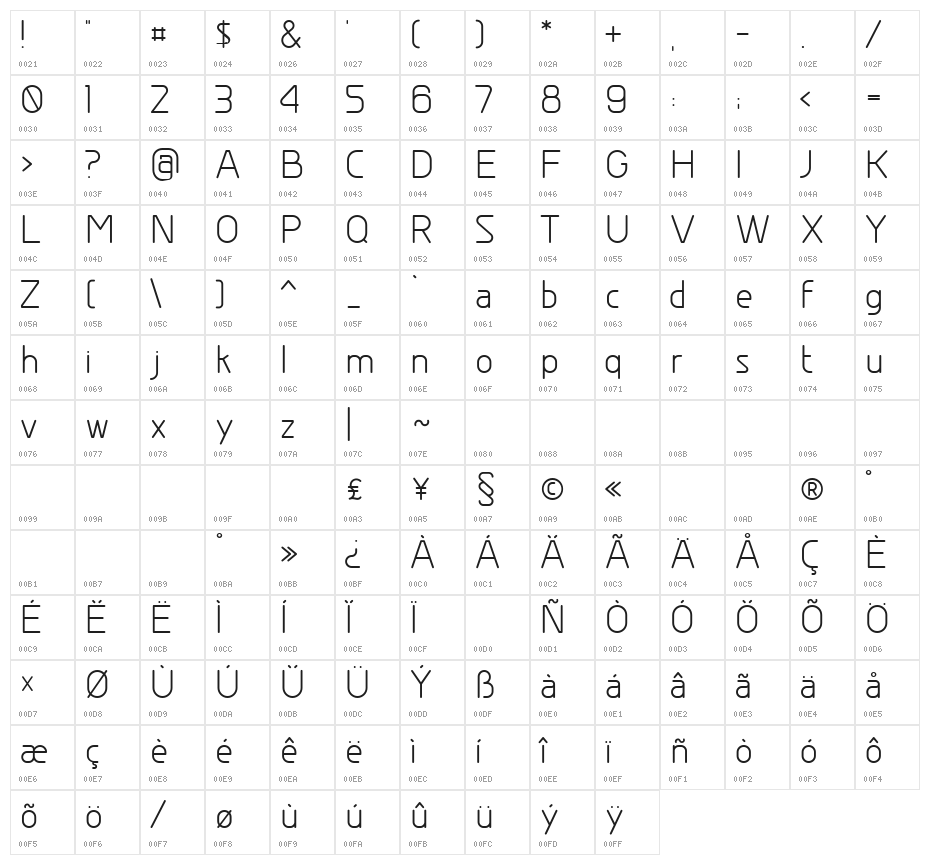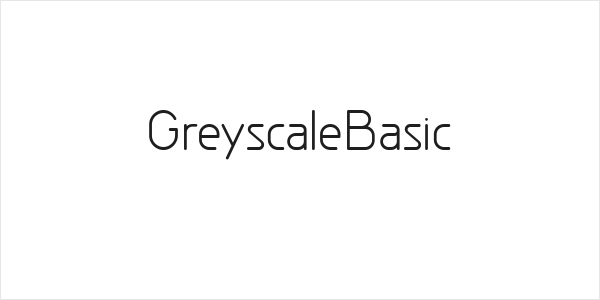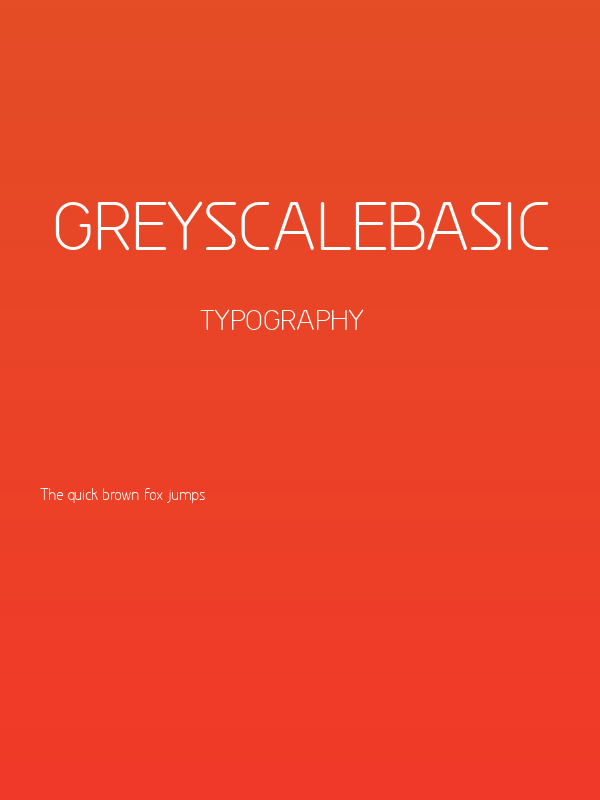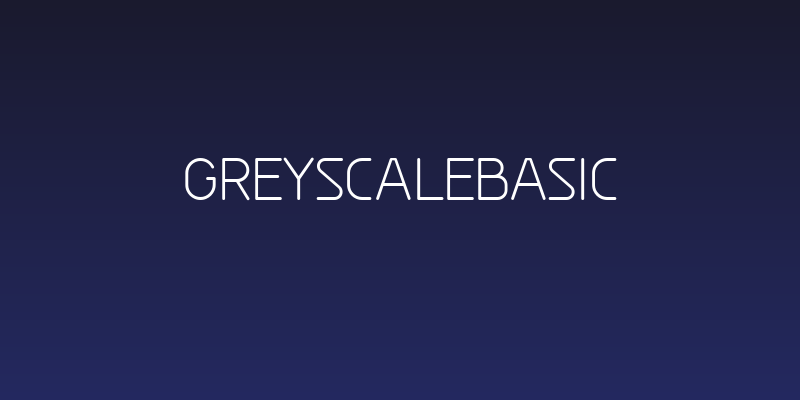
GreyscaleBasic Font
GreyscaleBasic Description
This font features a clean and modern sans-serif design with a geometric structure. The characters are evenly spaced with a consistent stroke width, giving it a balanced and harmonious appearance. The uppercase and lowercase letters maintain a uniform height, contributing to its sleek and contemporary look. The numerals and special characters are designed to match the overall aesthetic, ensuring readability and versatility. This font is ideal for digital interfaces and print media, offering clarity and style.
| Use Case | Headlines, Body text, Logos |
| Proposed Projects | Ideal for digital interfaces, branding, advertising, and editorial design. |